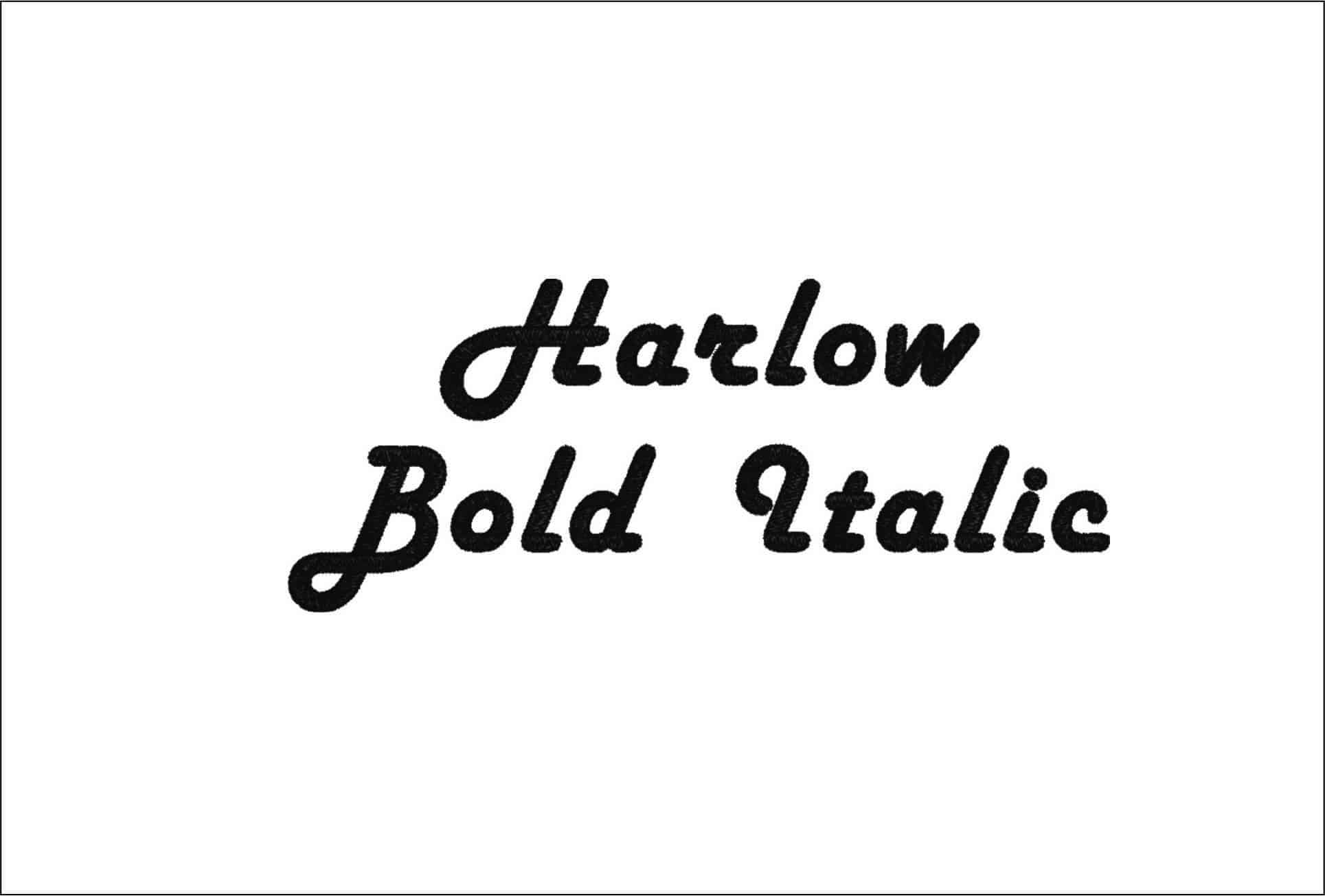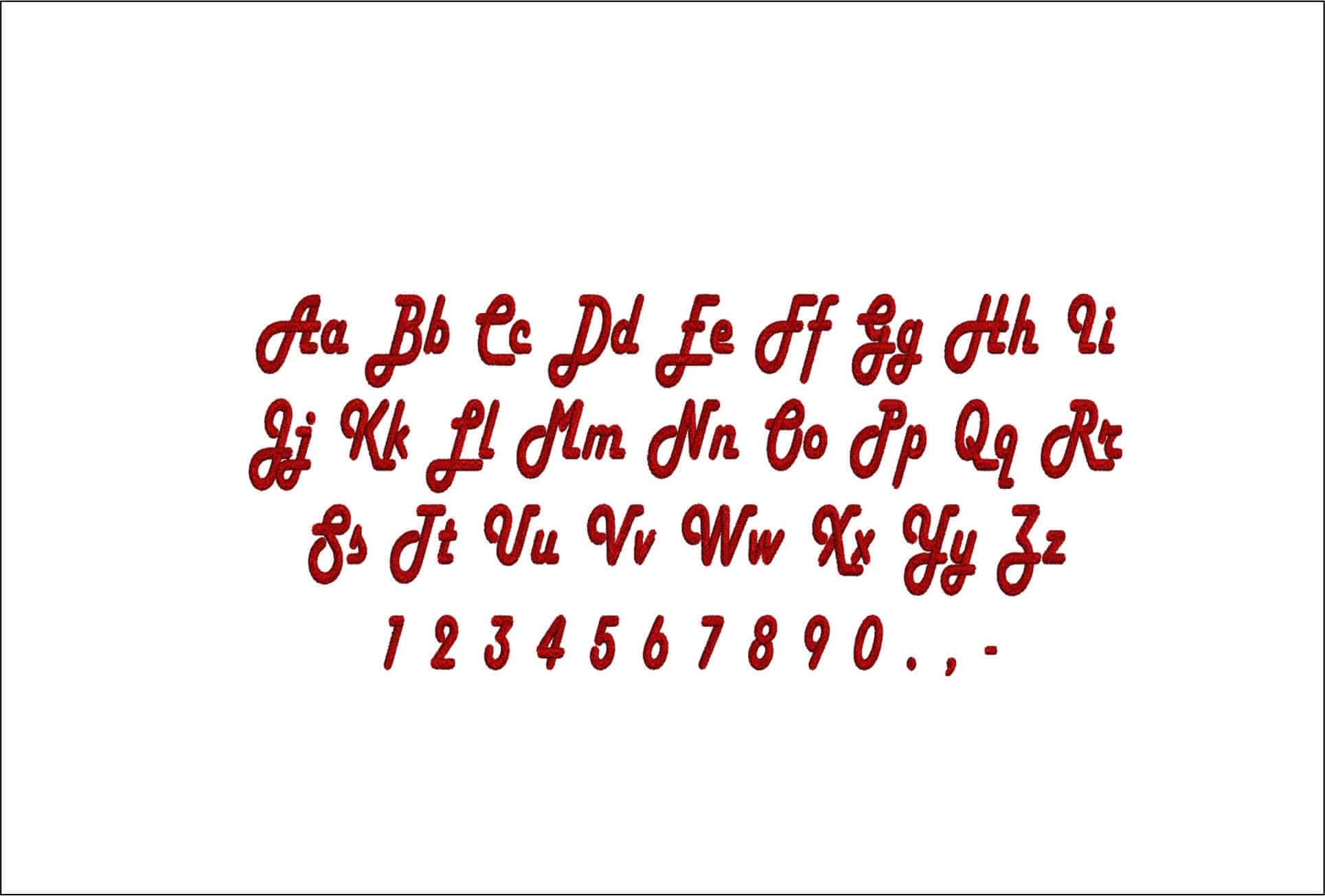
A bold italic script alphabet with confident, filled lettering that gives names, monograms and labels a polished custom look.
Add confident script style to names, monograms and personalised wording with the Harlow Solid Italic font set. This alphabet has a bold, fully filled look rather than a light outline, with a forward slant that makes each letter feel brisk and polished. The sample shows upper and lower case letters, numbers, plus full stop and comma punctuation, making it a practical choice for embroiderers who want more than just initials.
It suits pieces that benefit from readable script with a little weight behind it, such as sweatshirt fronts, robe cuffs, tote bags and nursery storage baskets. On cotton, canvas, fleece and stable knit fabrics, the solid lettering gives words presence so they do not disappear into the texture of the item. Use it for family names on linens, bold first names on children's wear, or clean personalised text on gifts where you want script to look stylish without turning wispy.